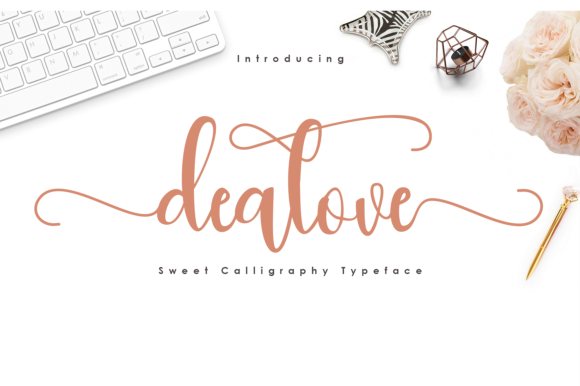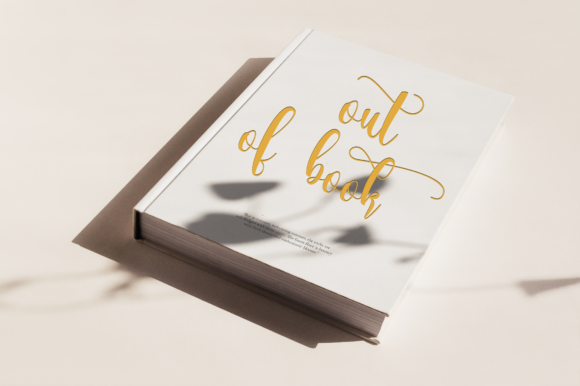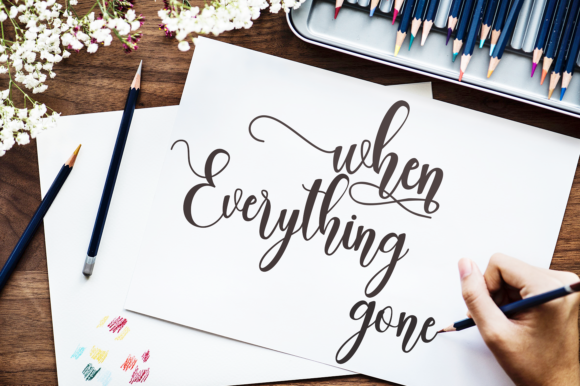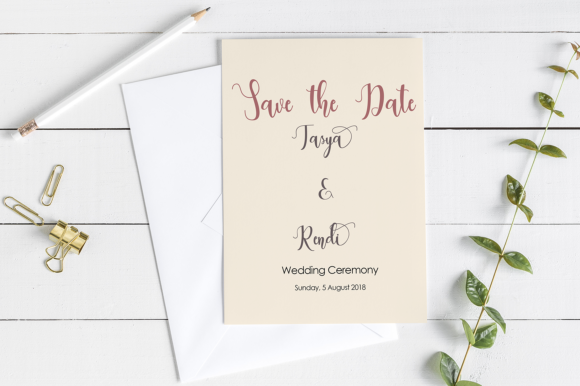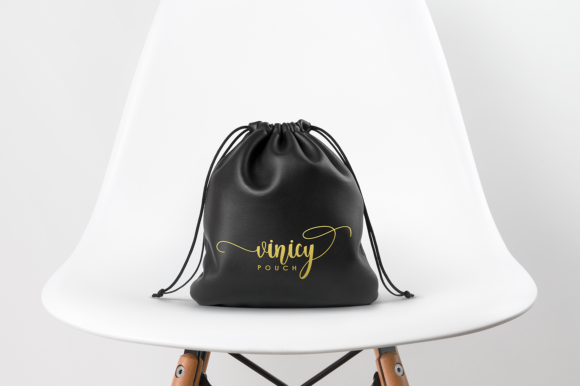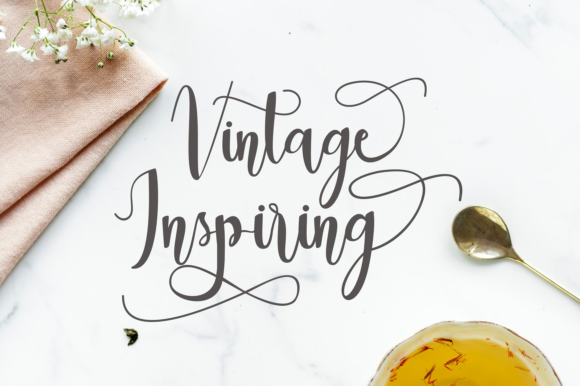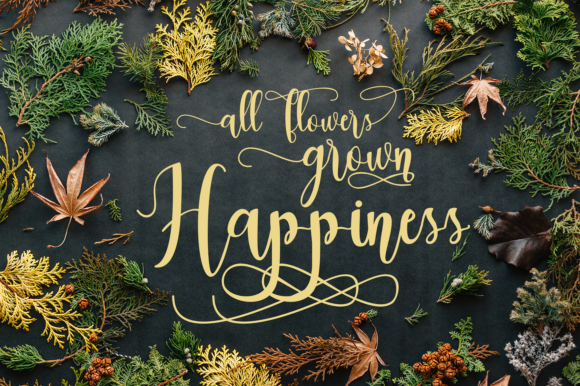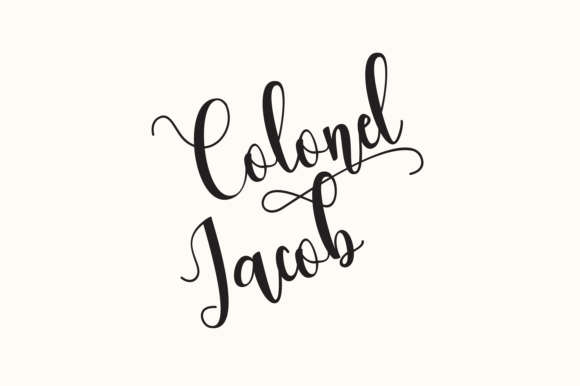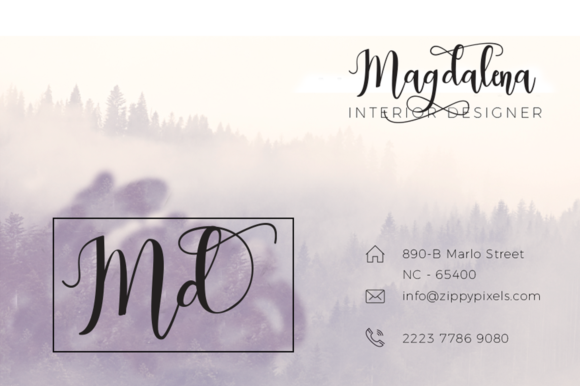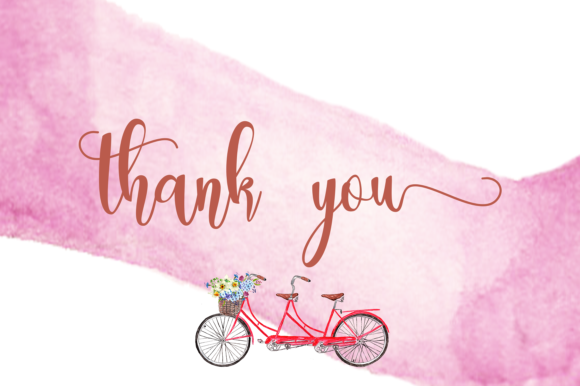
Dealove Script Font
About Dealove Script Font
Dealove Script is a sweet calligraphy typeface. Dealove is simple to use and makes it easy to create awesome lettering, just type your words and then you will immediately see the great results.
With its modern script style, Dealove is perfect for many different projects such as: quotes, blog headers, posters, weddings, branding,and much more!